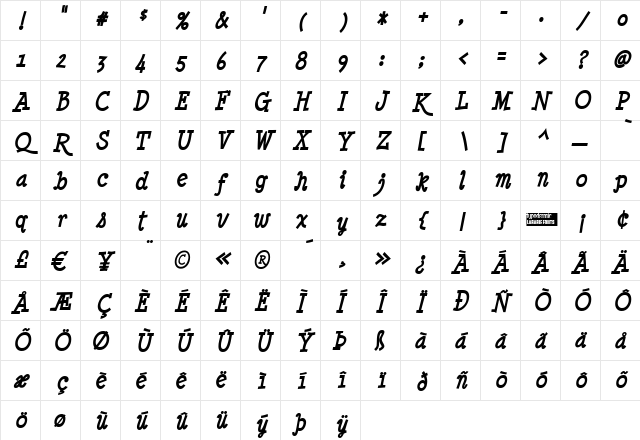
Minya Nouvelle Bold Italic Free Font
Minya Nouvelle Bold Italic
Design Context for Minya Nouvelle
Minya Nouvelle is a composed and adaptable typeface that performs quietly and consistently across a wide range of design contexts. The slanted form adds forward momentum and visual energy. Its bold stroke weight gives it real presence on the page.